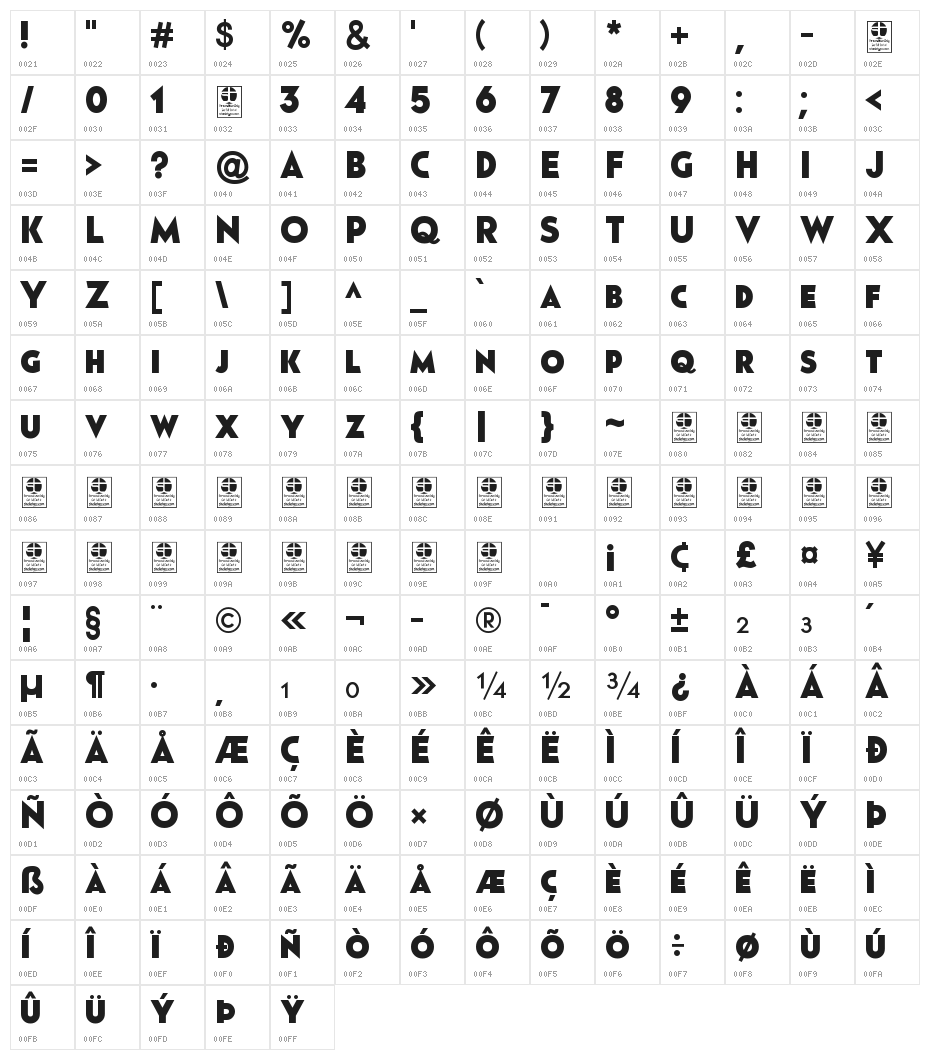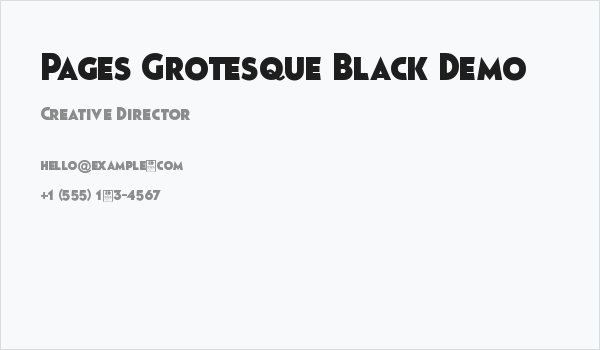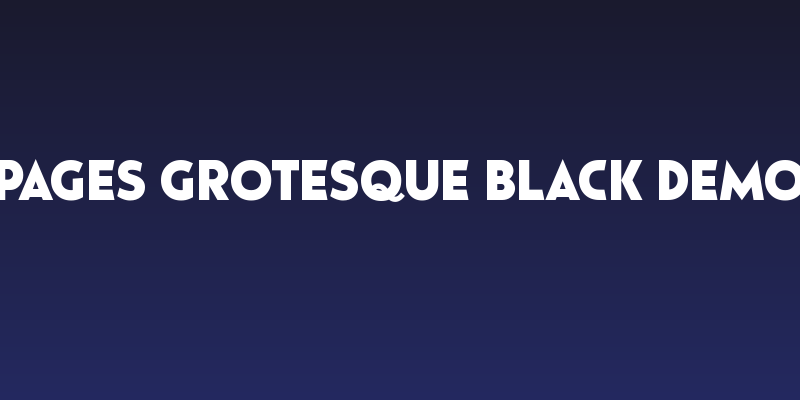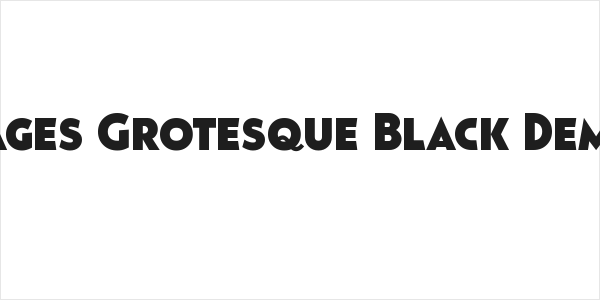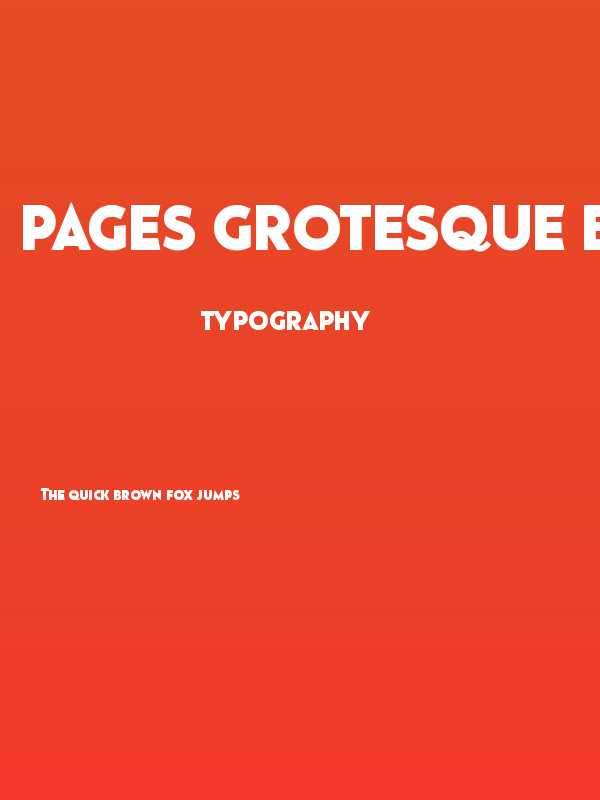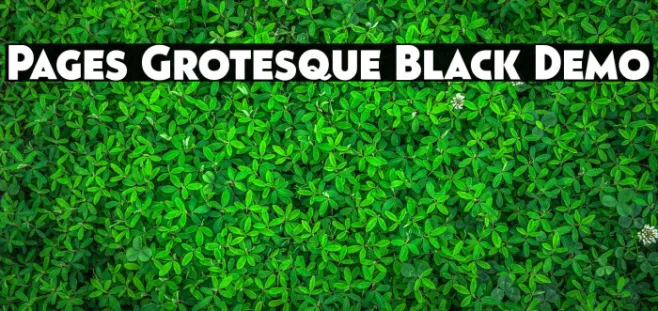
Pages Grotesque Black Demo Font
Pages Grotesque Black Demo Description
This font features bold, geometric letterforms with a strong presence, making it ideal for impactful designs. The uppercase and lowercase letters maintain a consistent weight, providing a uniform appearance. The numerals and special characters are designed with the same boldness, ensuring they stand out in any composition. The overall style is modern and assertive, suitable for projects that require a strong visual impact. The characters are tightly spaced, enhancing the boldness and making it perfect for headlines or titles.
| Proposed Projects | Ideal for branding, posters, headlines, and any design requiring a strong visual impact. |